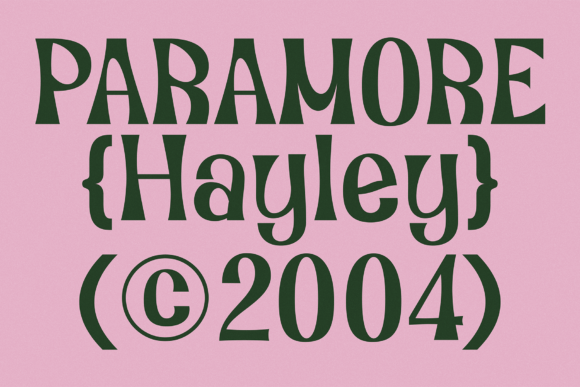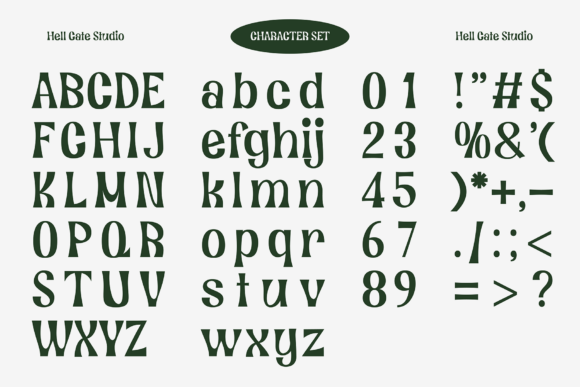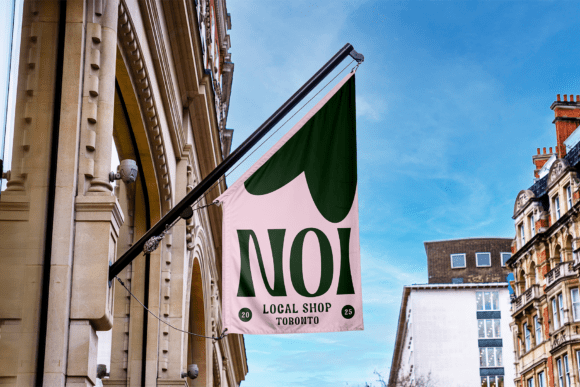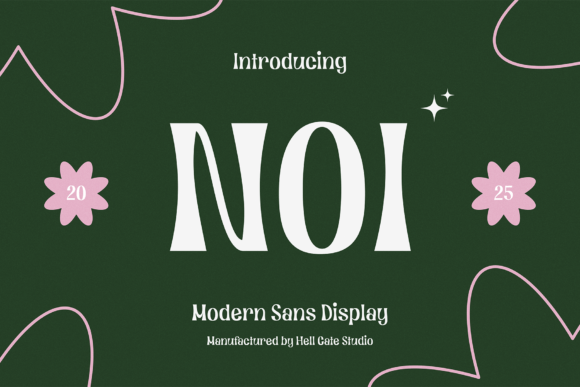
Introduction to Noi Modern Sans Display Font
Noi Modern Sans Display typeface is a font that personifies elegance with its smooth and attractive appeal.
The versatility of this font offers a user-friendly experience, as it allows effortless text and color editing Not to mention, it boasts a high-quality render for an added edge of sophistication.
Key Features of Noi Modern Sans Display Font
Why Choose Noi Modern Sans Display Font?
Noi Modern Sans Display Font offers exceptional quality and versatility, making it a valuable addition to your design toolkit. Whether you’re creating for personal projects or commercial use, Noi Modern Sans Display Font delivers professional results.